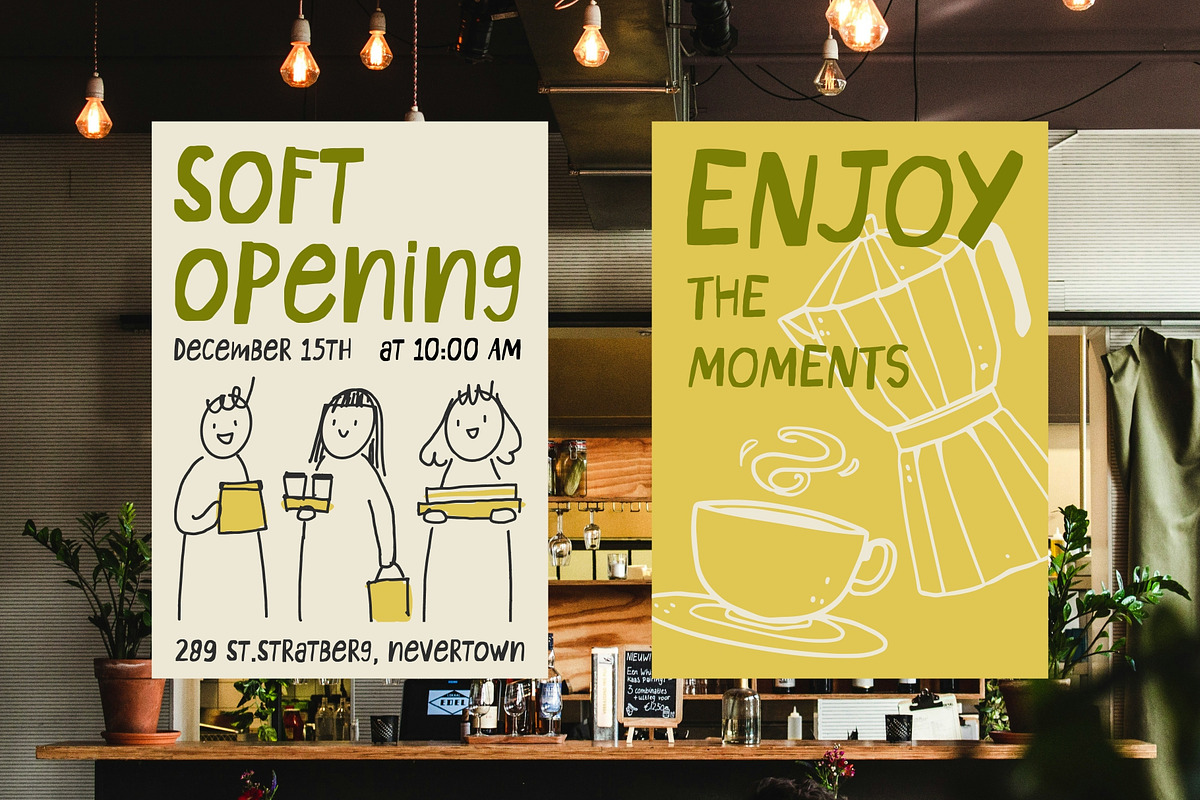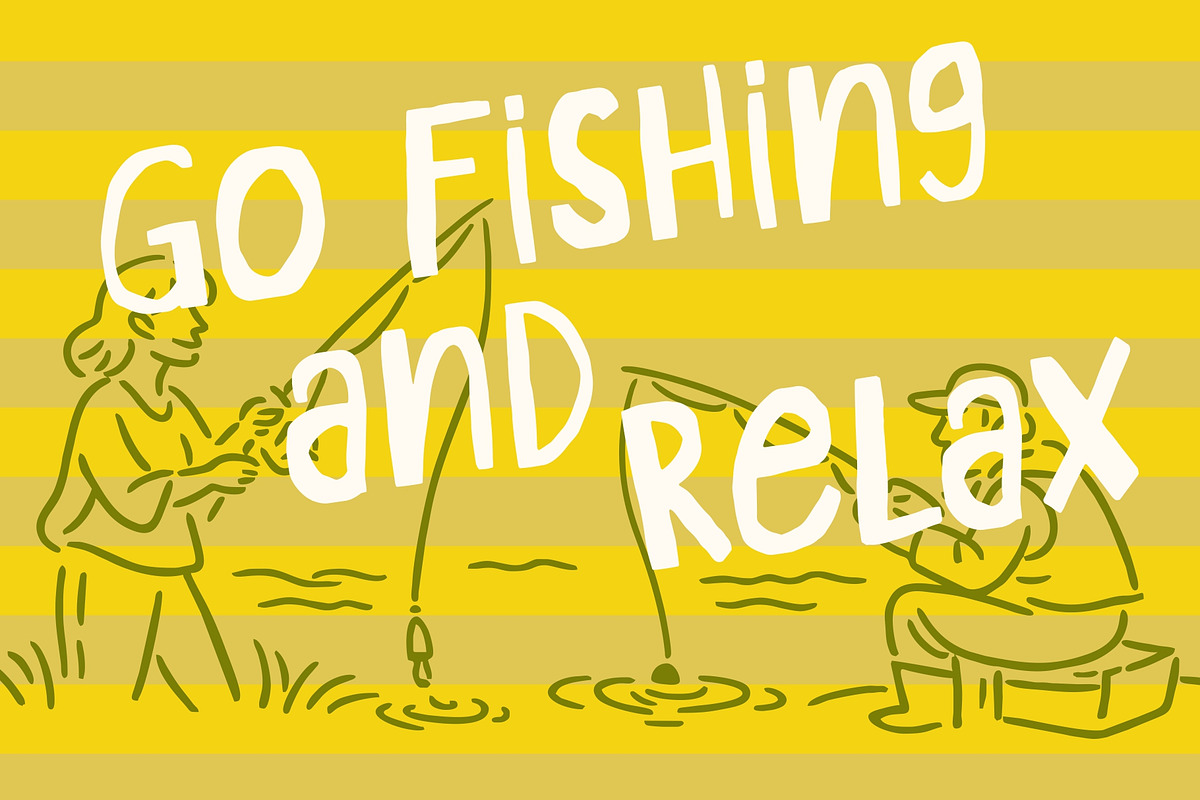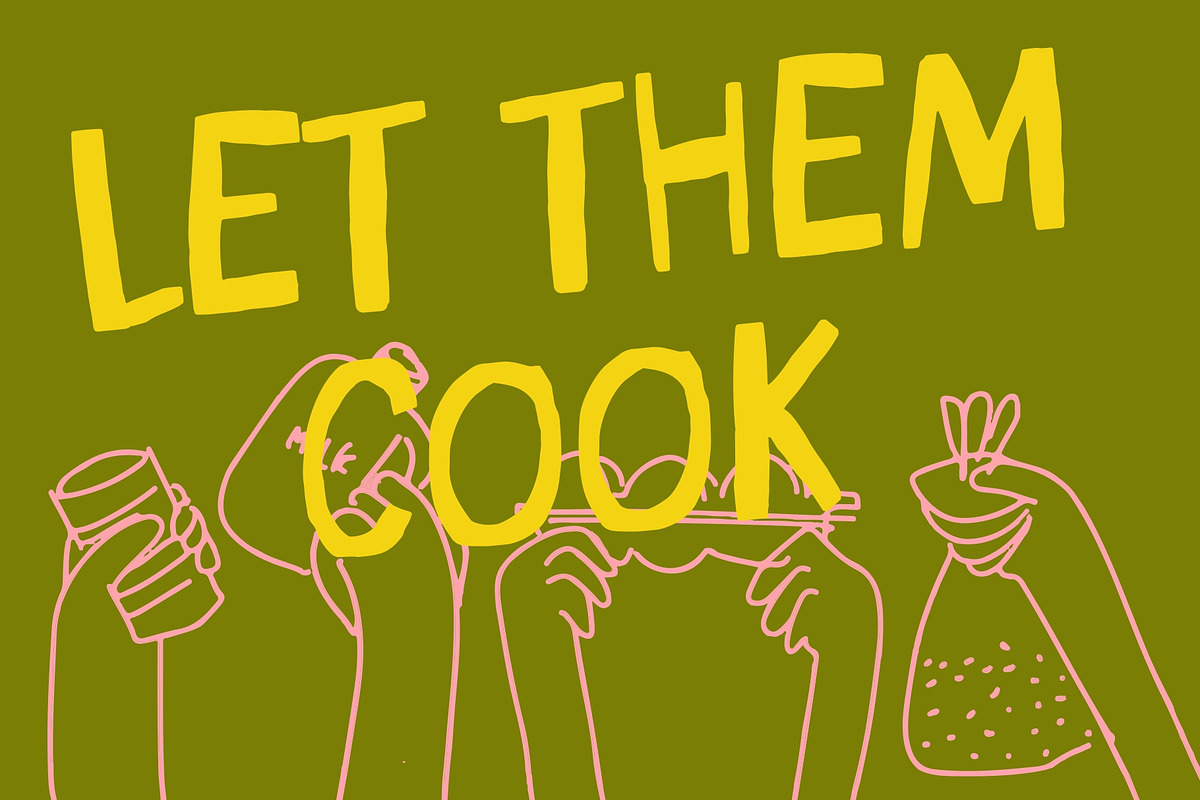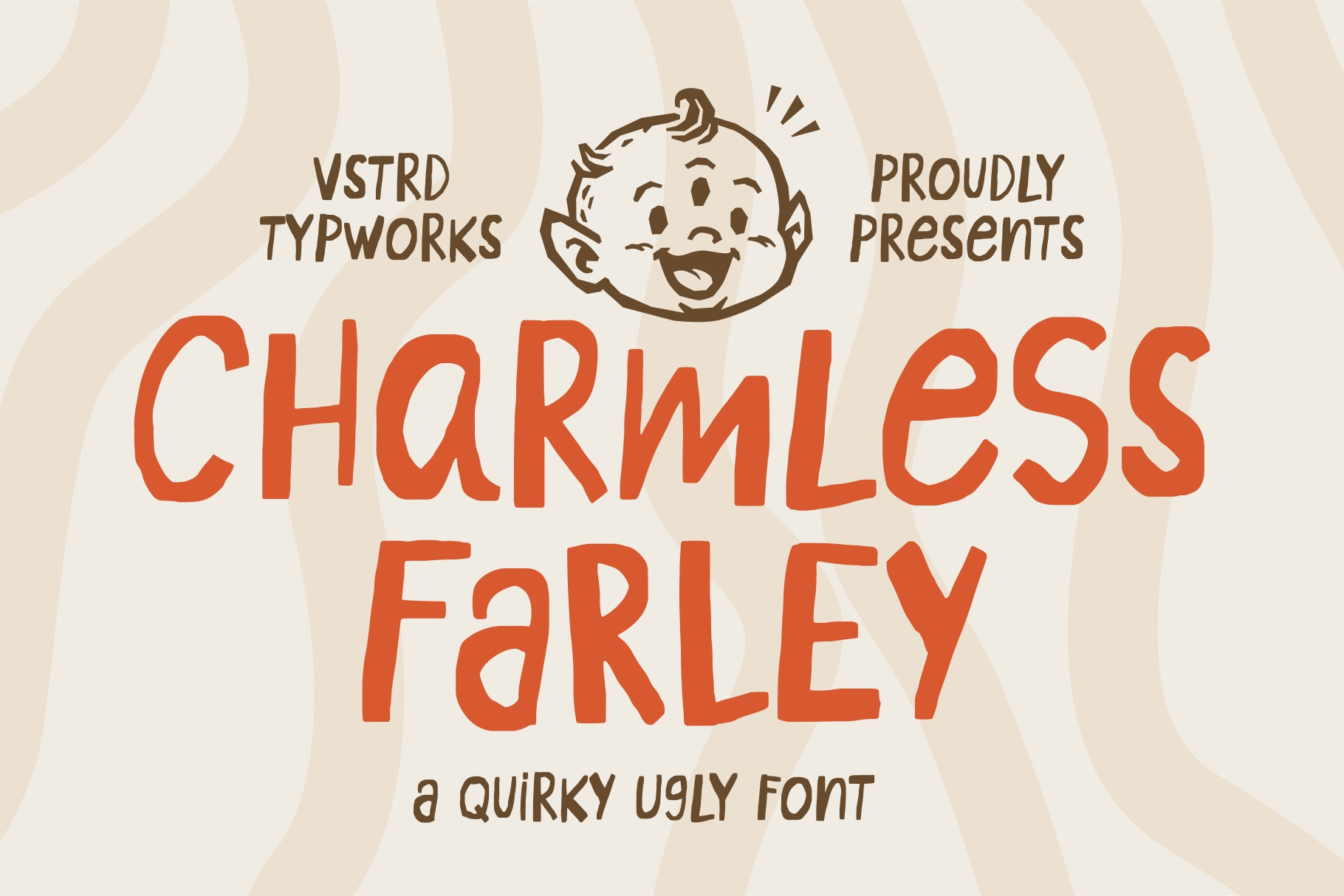
Charmless Farley - Quirky Ugly Font
Charmless Farley is a delightfully awkward font that breaks the rules and embraces imperfection. With uneven shapes, playful strokes, and a hand-drawn attitude, it’s made for designs that don’t want to look polished and that’s the charm. Perfect for posters, café menus, packaging, kids projects, and fun branding that needs personality over perfection. Odd, expressive, and unapologetically fun, Charmless Farley turns flaws into character.
- All Caps Uppercase & Lowercase